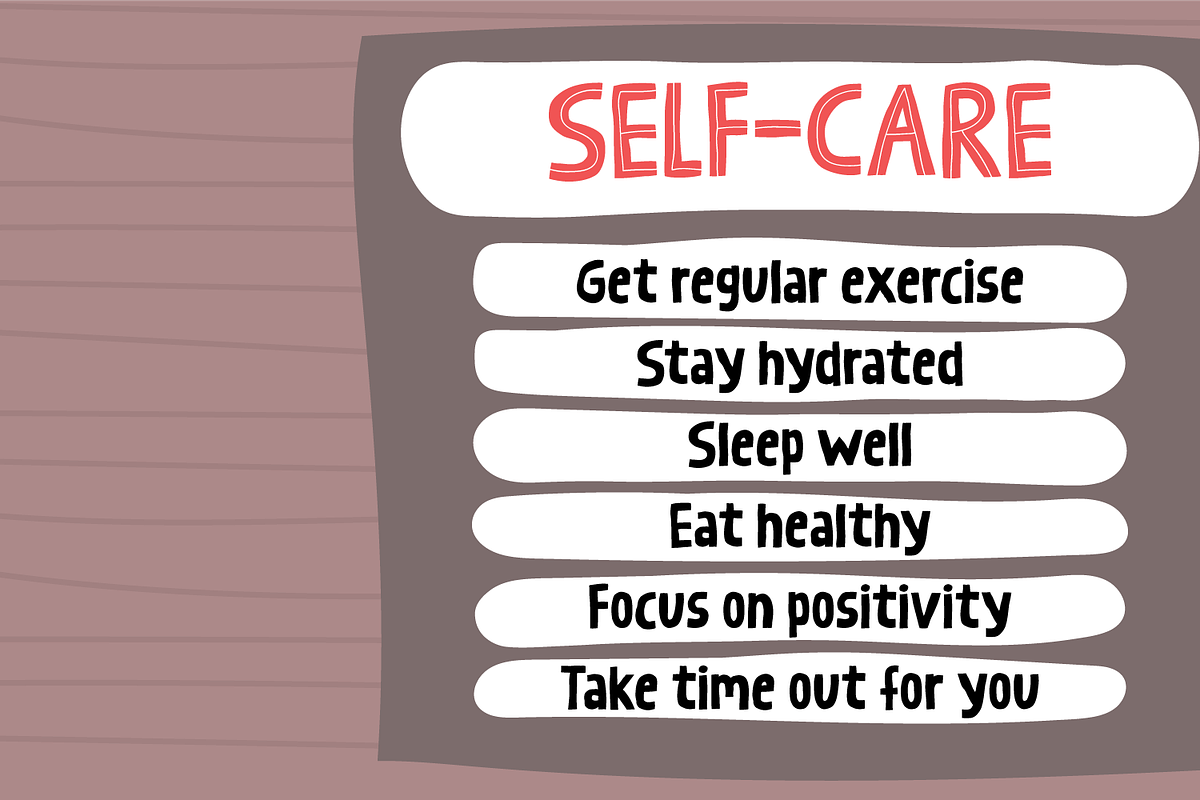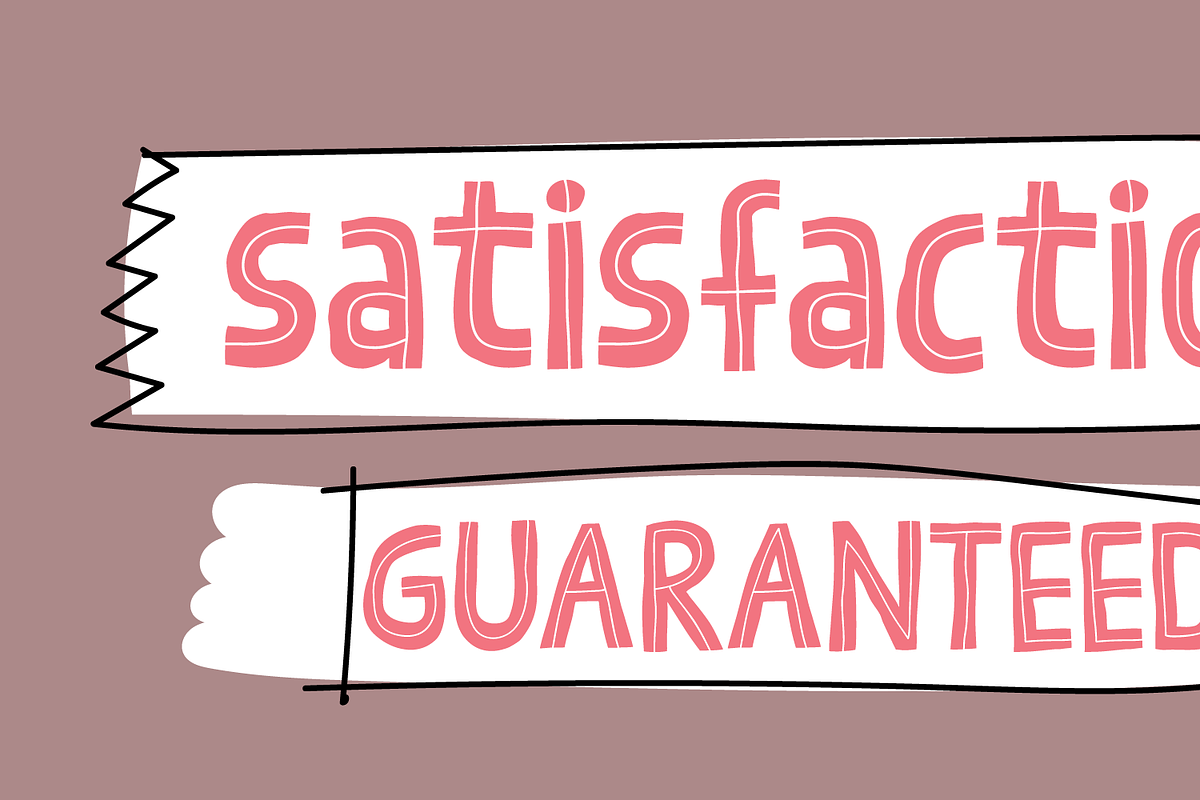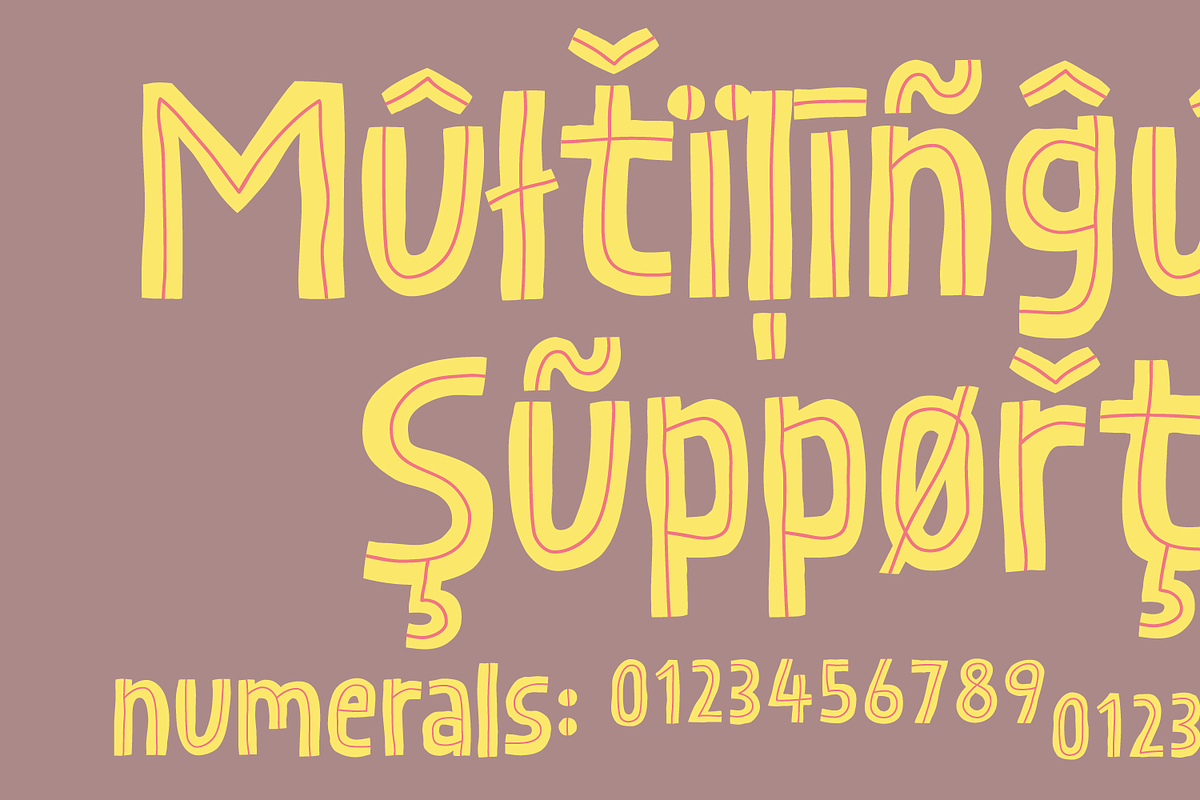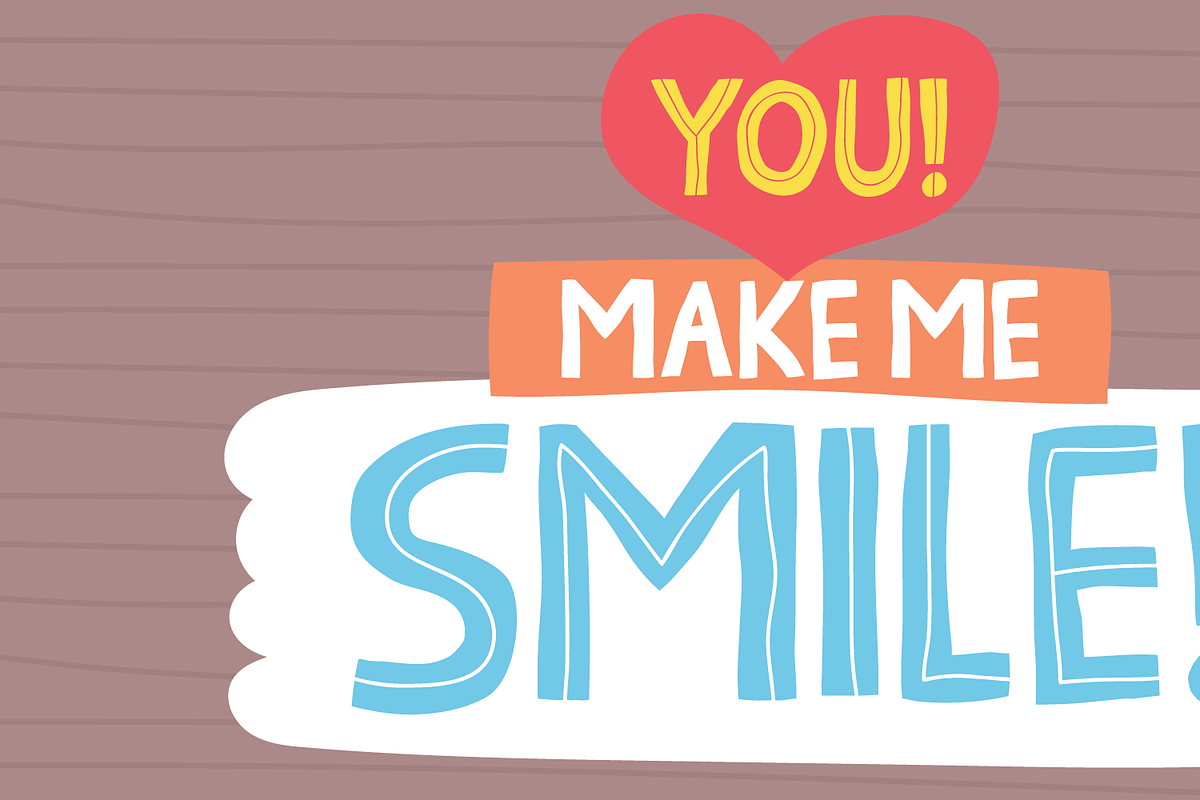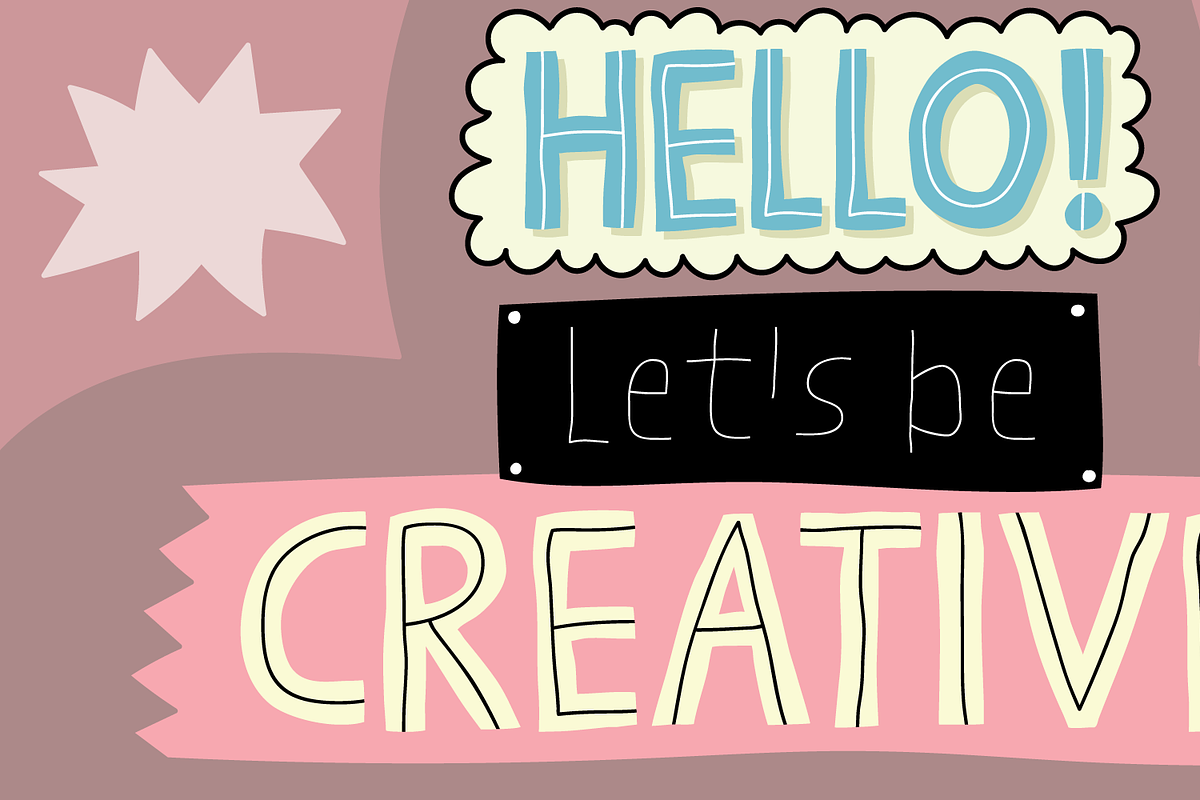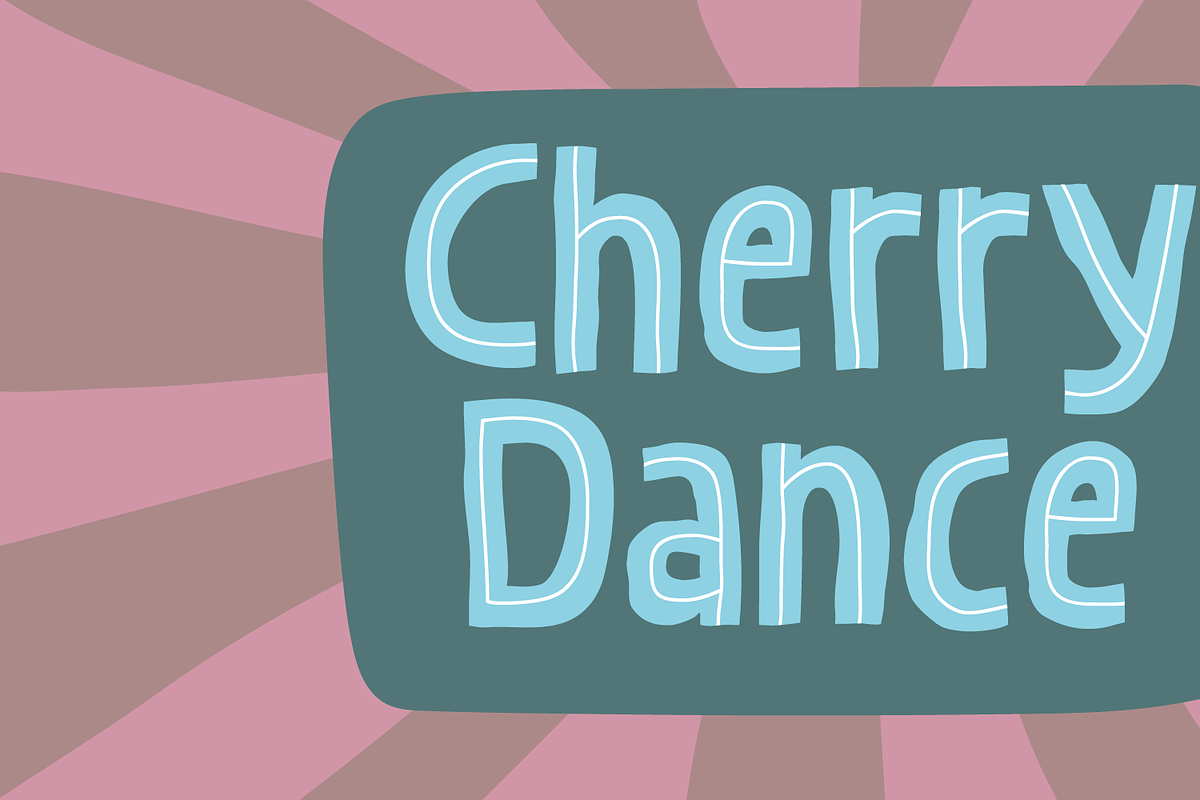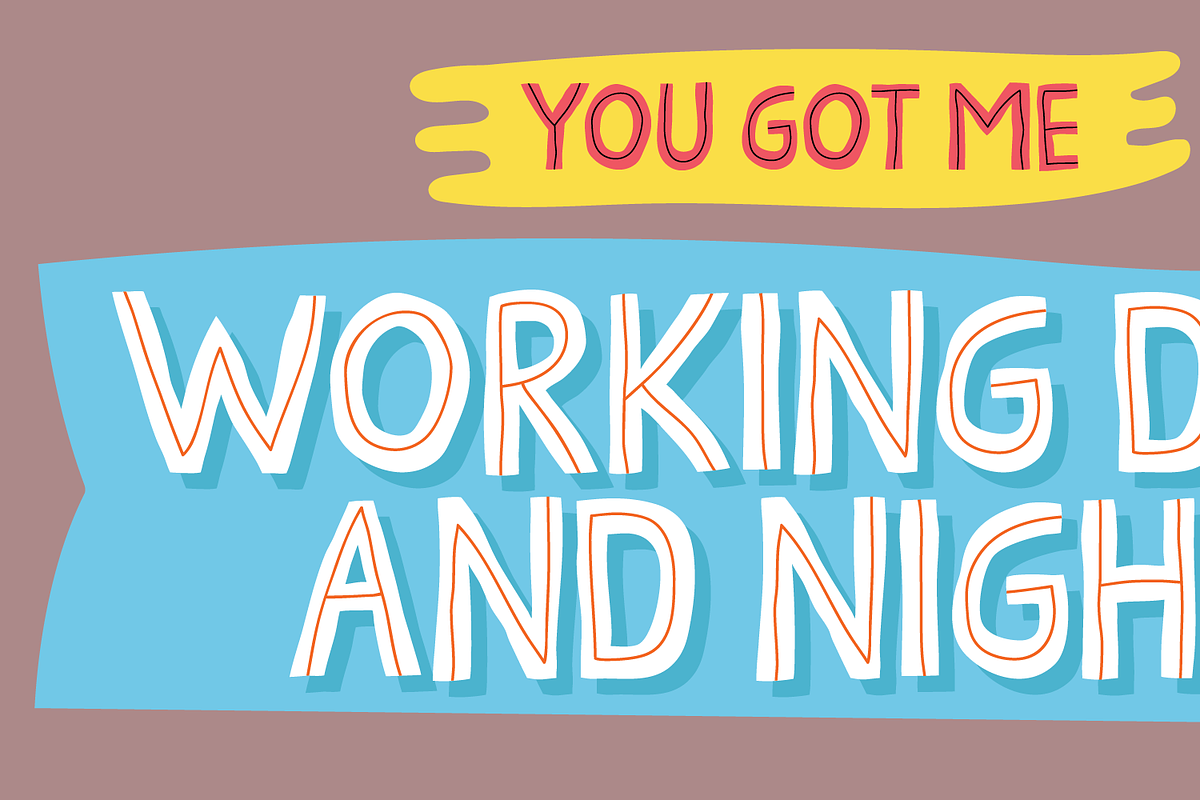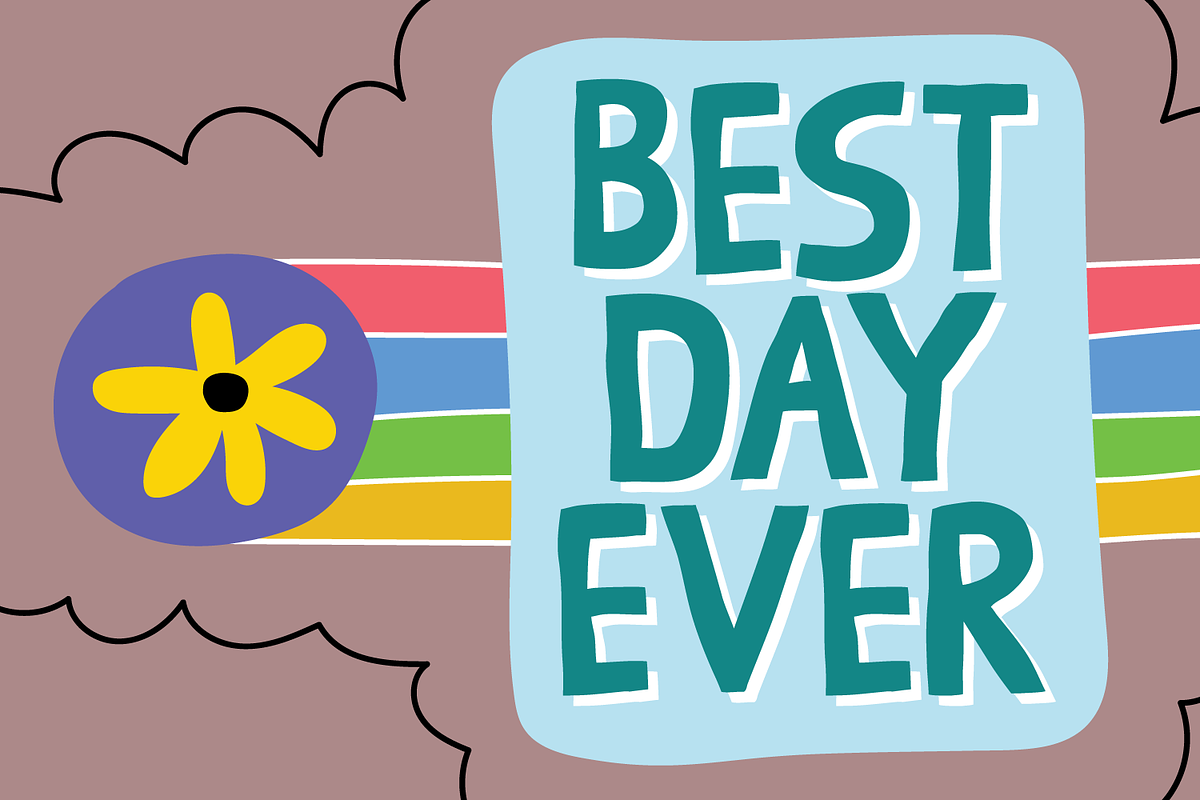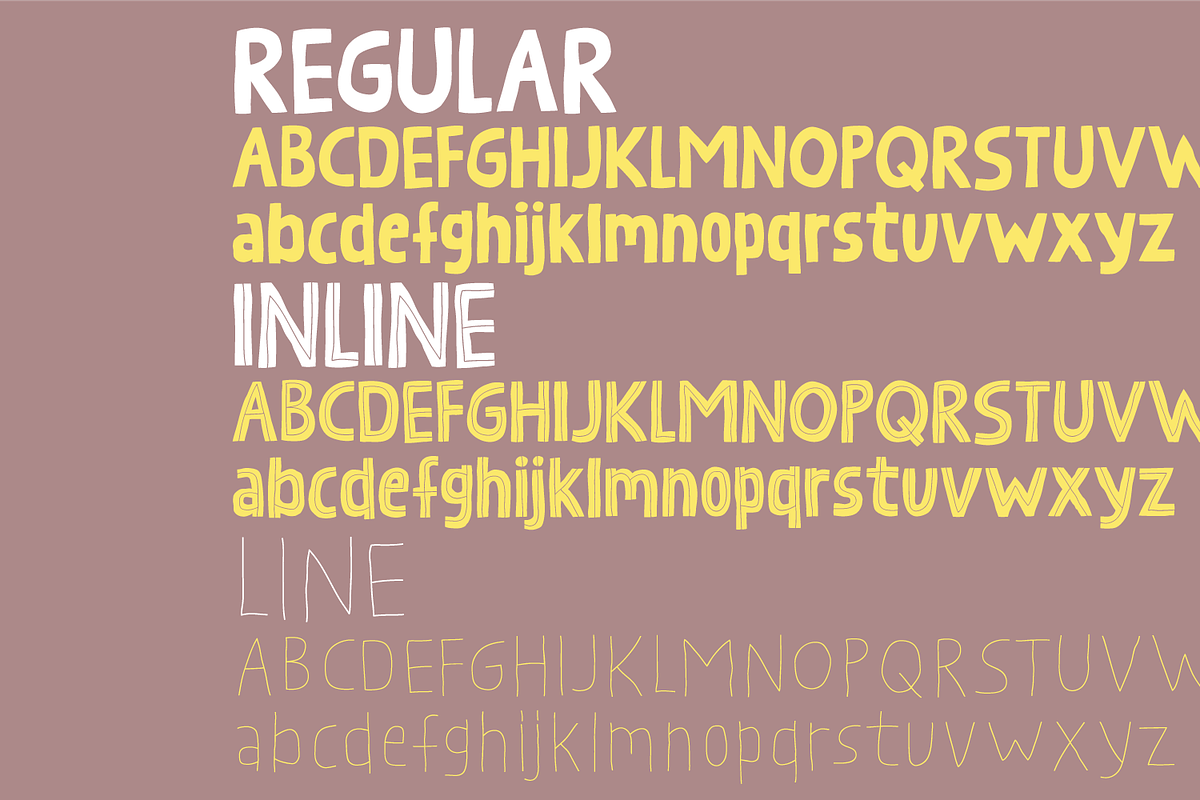
Cherry dance - let's party!
Cherry Dance has a playful, hand-drawn style with a slightly uneven, whimsical look. Its thick strokes and soft curves give it a fun, casual feel—perfect for children’s books, crafts, or cheerful designs. Play around with the different versions and add a layered, cut-out effect that enhances its crafty, handmade vibe.